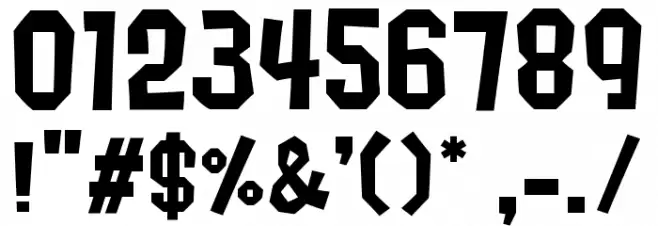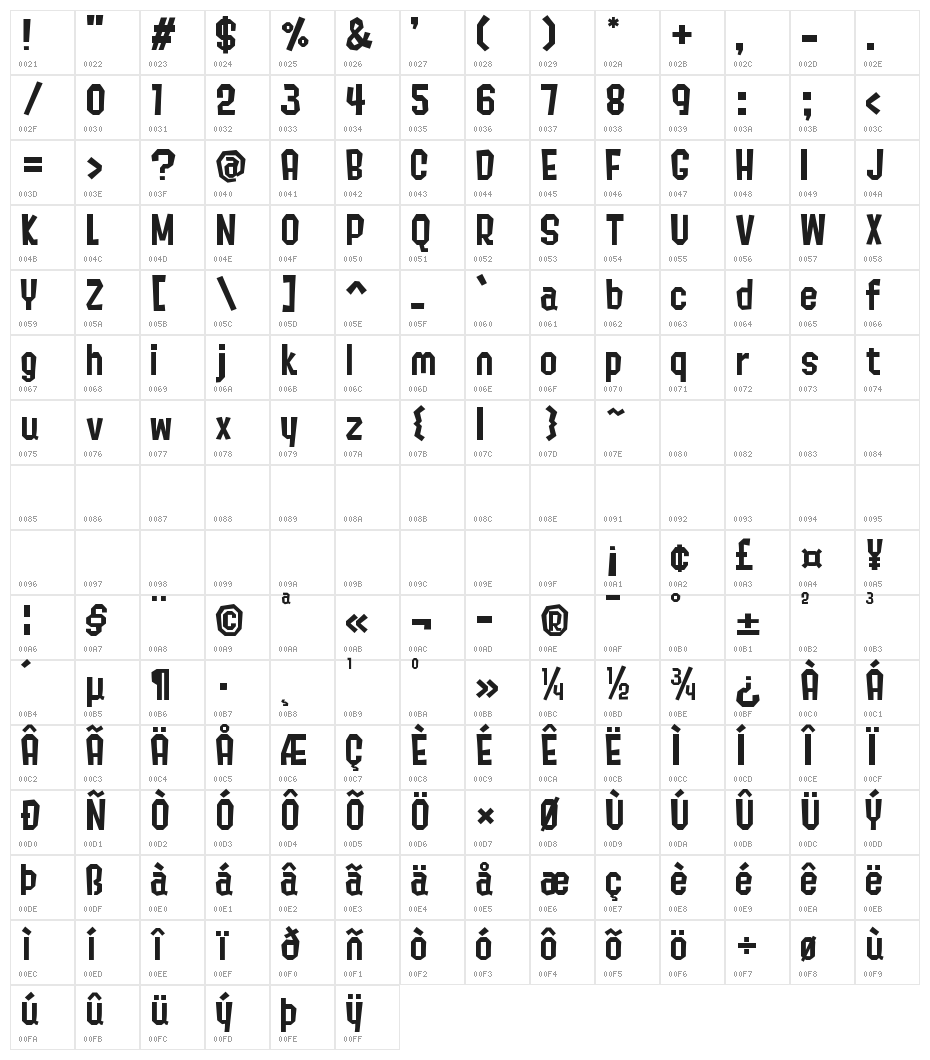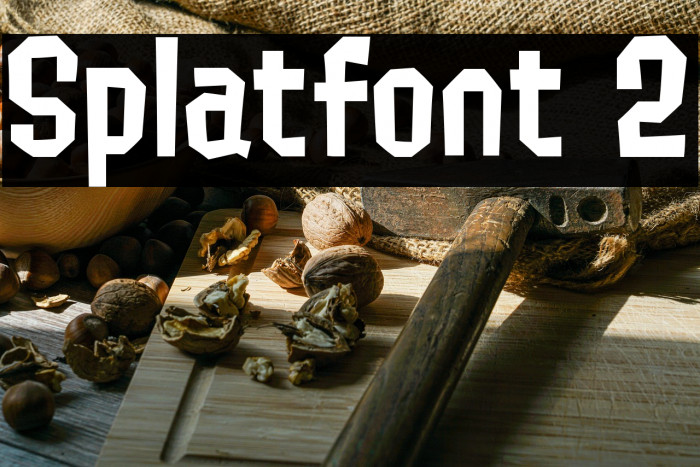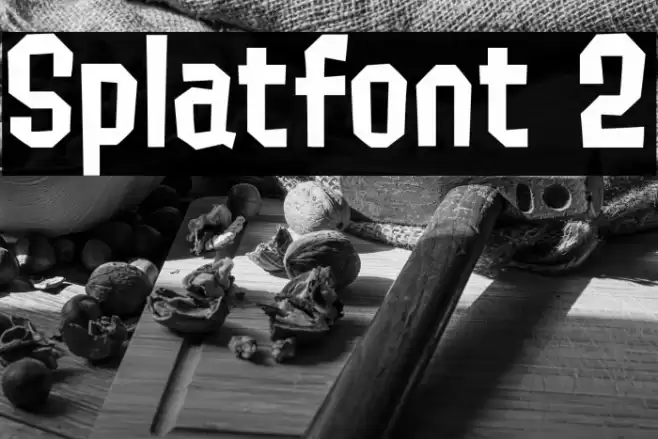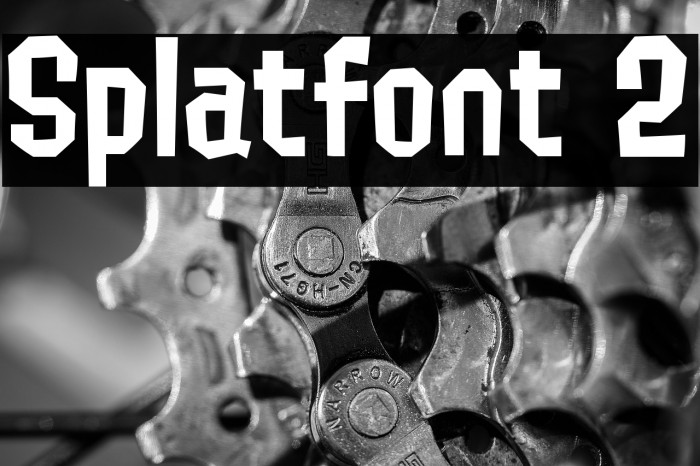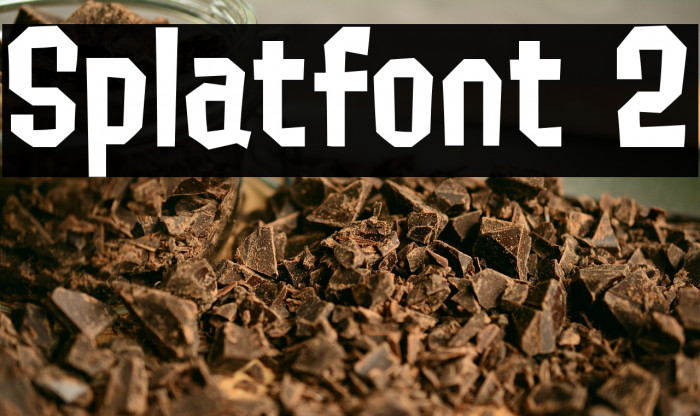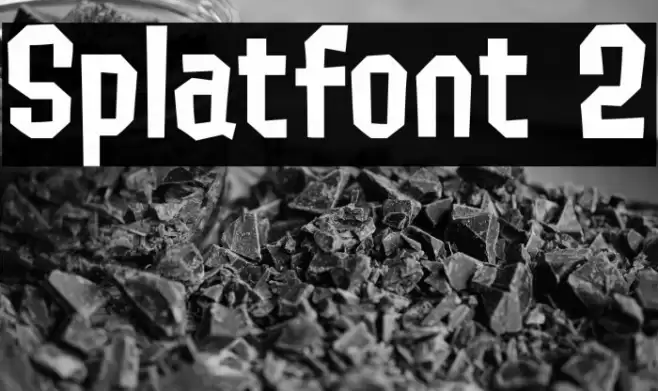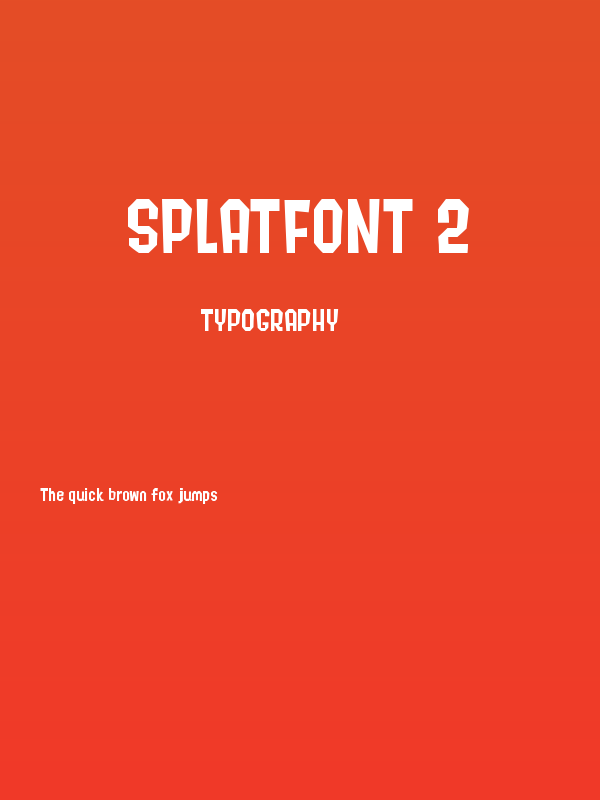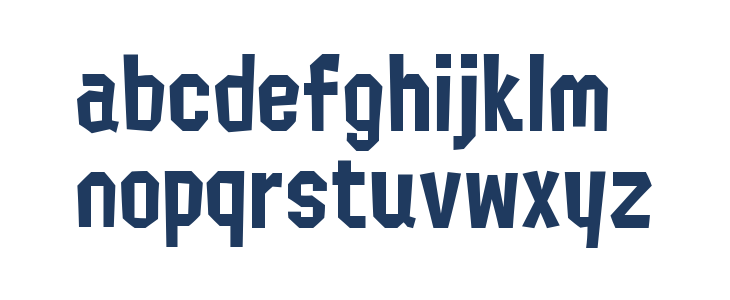
Splatfont 2 Font
Splatfont 2 Description
This font features a bold and edgy design with sharp, angular lines and a slightly irregular structure, giving it a dynamic and energetic appearance. The uppercase and lowercase letters maintain a consistent style, with a strong geometric influence that adds a modern and unconventional touch. The numbers and special characters follow the same aesthetic, ensuring a cohesive look across all glyphs. This font's unique style makes it stand out, making it ideal for projects that require a bold statement or a creative flair.
| Overall Style | Modern, Edgy |
| Proposed Projects | Ideal for posters, album covers, video game graphics, and branding that requires a bold, distinctive look. |